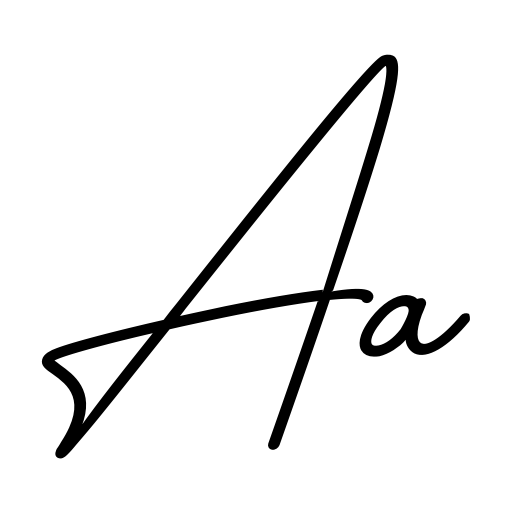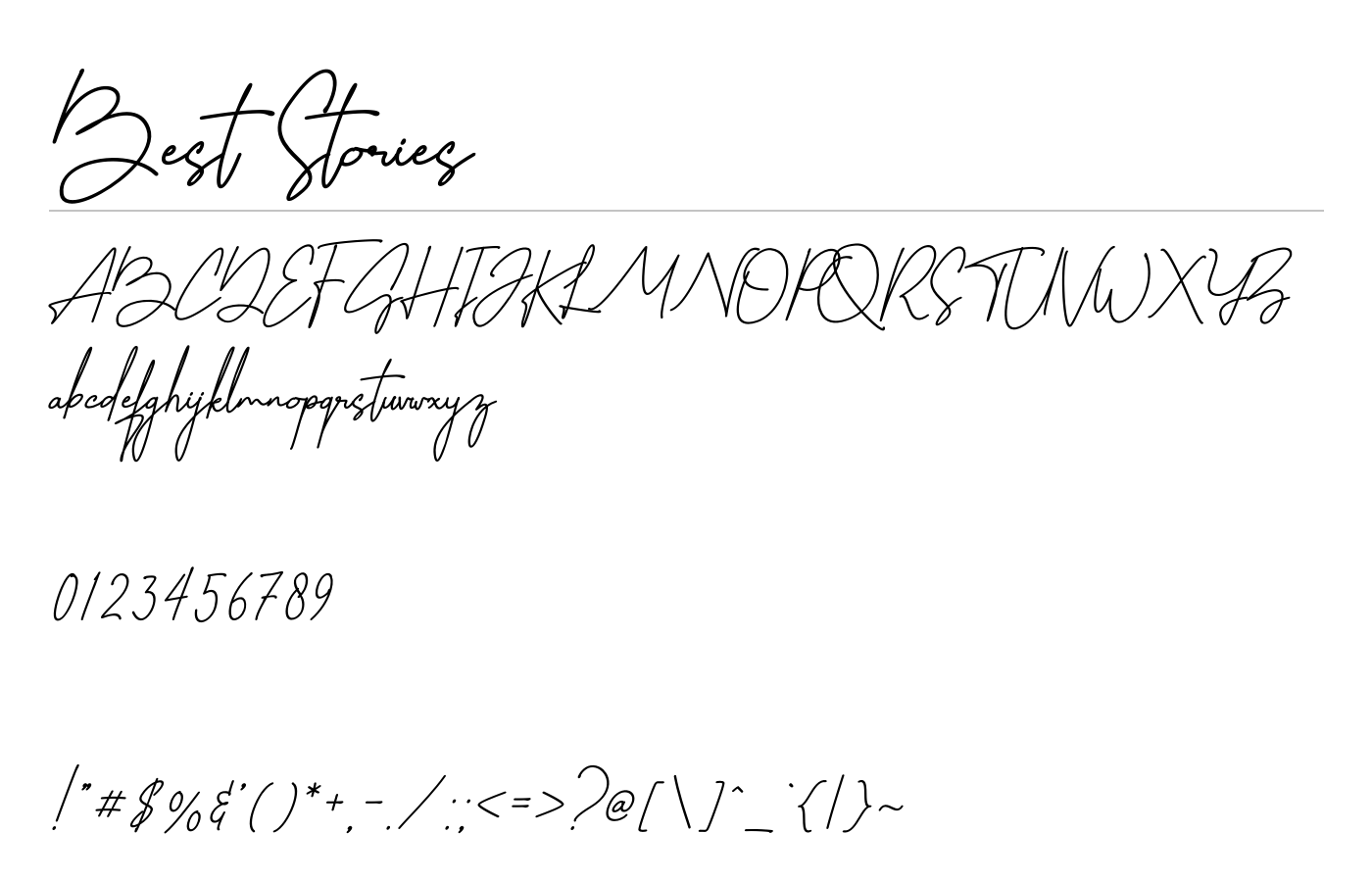
Best Stories is a delicate, handwritten script font with a light weight and elegant flow, featuring tall, slender letterforms and smooth, organic strokes that convey a personal, artistic touch. Its casual yet refined style makes it ideal for creative projects and branding that seek a warm, inviting, and stylish feel. This font works beautifully for invitations, logos, and editorial headlines where a graceful, handwritten look is desired.
Best Stories Font
About Best Stories Font
| Font family | Best Stories Font |